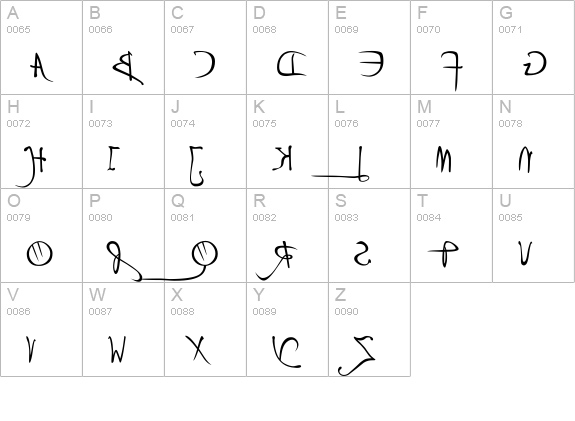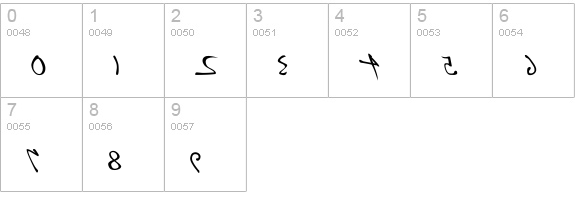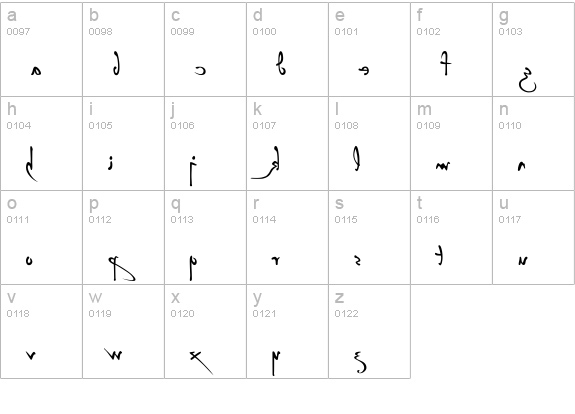
P22 DaVinci Backwards Font Details
Introducing the mesmerizing P22 DaVinci Backwards font - a truly unique and innovative typeface that will captivate your imagination and push the boundaries of traditional typography. This font pays homage to the genius of Leonardo da Vinci, as it ingeniously flips each letter, creating a visually stunning and thought-provoking design. P22 DaVinci Backwards font is a masterpiece in itself, showcasing the artistry and creativity of its creator. With its elegant curves, intricate details, and mind-bending reversal of characters, this font will undoubtedly leave a lasting impression on any project it graces. Whether you are a designer, artist, or simply someone who appreciates the beauty of unconventional fonts, P22 DaVinci Backwards font offers endless possibilities. Its versatility allows it to be used in a wide range of applications, from branding and advertising to book covers and digital artwork. One of the most remarkable aspects of P22 DaVinci Backwards font is that it is freely available for download at FontsMarket.com. This means that you can unleash your creativity without any restrictions or limitations, allowing you to explore the endless potential this font has to offer. Immerse yourself in the world of P22 DaVinci Backwards font and let its distinct charm and unconventional design take your projects to new heights. Download this extraordinary font today and embark on a journey of artistic expression that knows no bounds.